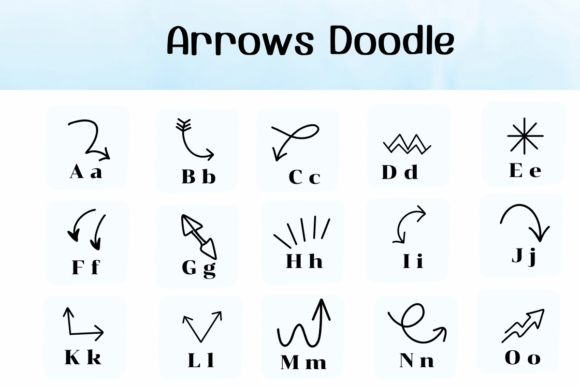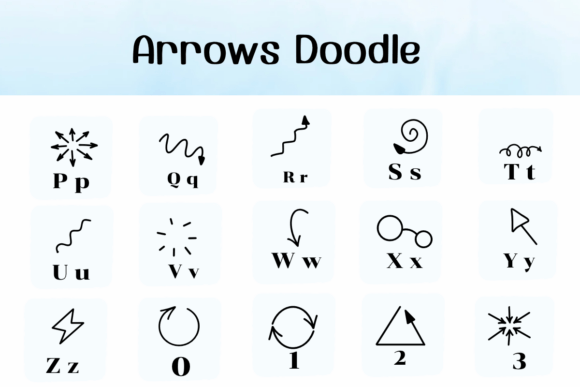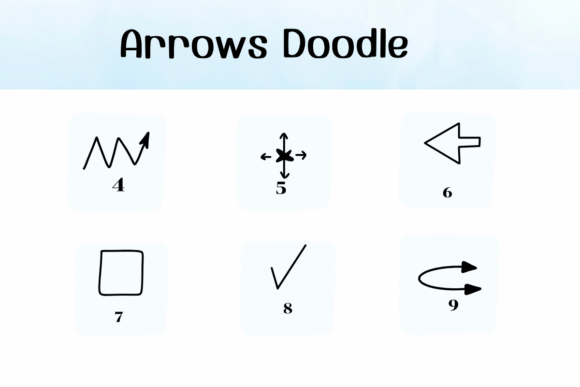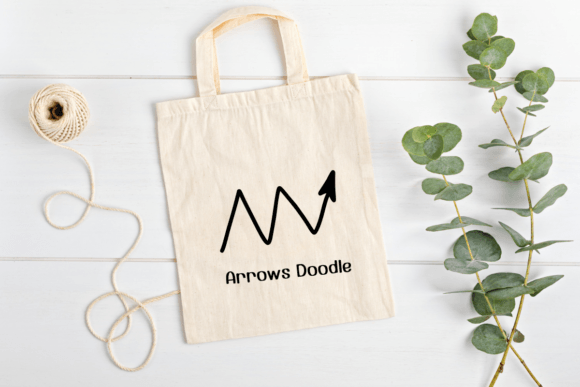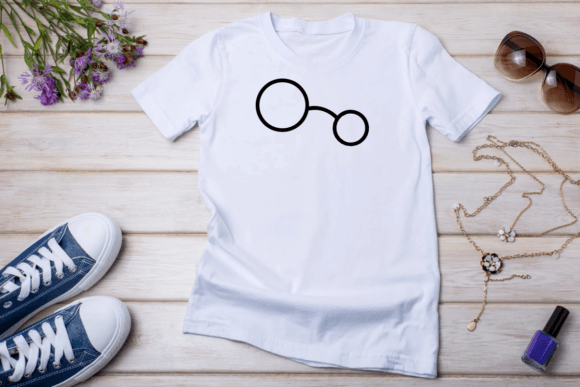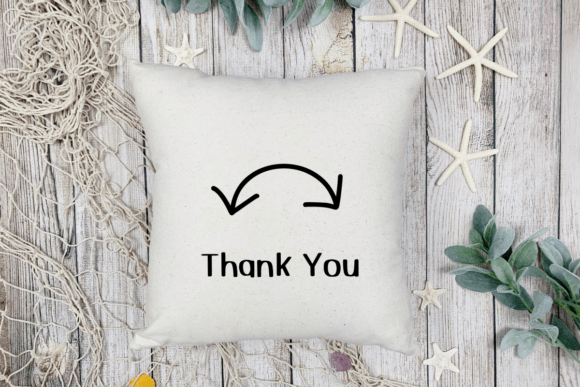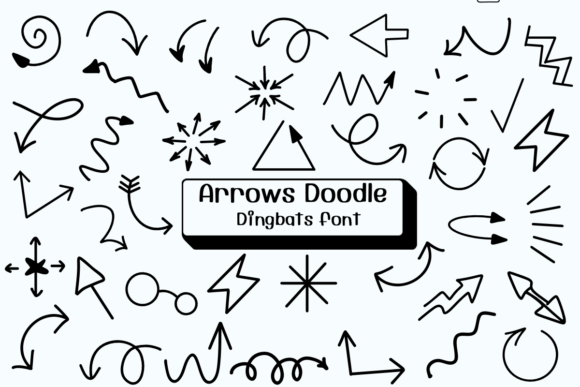
Unleash Your Creativity with Arrows Doodle Font
Have you ever found yourself sitting at your desk, surrounded by scraps of paper, glue, and glitter, trying to bring your latest DIY project to life? The creative process can be just as fun as the end result, but sometimes, all it takes is the right tool to make it truly special. For designers and crafty enthusiasts alike, the Arrows Doodle Font is just that – a dingbats font that adds a touch of whimsy and personality to any project.
This sketch-style font is perfect for wedding invitations, DIY crafts, decorations, logos, and any other creative idea you can think of. With its unique, hand-drawn aesthetic, the Arrows Doodle Font brings a sense of warmth and character to your designs, making it a valuable addition to any designer’s toolkit.
- Font Style: Casual, Doodle, Hand-Drawn
- Font Size: 300 glyphs, including uppercase and lowercase letters, numbers, and punctuation
- Unique Characteristics: Distressed, Hand-Drawn, and Whimsical style with arrows and doodle elements
Review of “Arrows Doodle Font”
I recently had the chance to work with “Arrows Doodle Font” and here’s my honest take on it.
- Unique aesthetic: The font has a quirky, hand-drawn feel that can add a touch of whimsy to any design.
- Customization options: The font comes with a range of arrow styles and customization options, making it versatile for different design applications.
- Fun to work with: I found the font to be easy to use and fun to experiment with, which is always a plus in my book.
- Legibility issues: In some cases, the font can be difficult to read, particularly at smaller sizes or in body text.
- Limited font weights: The font only comes in a few weights, which can limit its use in designs that require a range of font weights.
- Not suitable for all designs: The font’s playful aesthetic may not be suitable for all types of designs, such as formal or professional projects.
Overall, I think “Arrows Doodle Font” is a fun and creative addition to any designer’s toolkit. While it has some limitations, its unique aesthetic and customization options make it a great choice for designs that need a touch of personality.
Use bold and italic styles to add emphasis to your text.
Combine the Arrows Doodle Font with other creative fonts to create unique and visually appealing designs.
Experiment with different colors and font sizes to create a cohesive look.
Infographics and presentations.
Marketing materials and social media graphics.
Wedding invitations and party decorations.